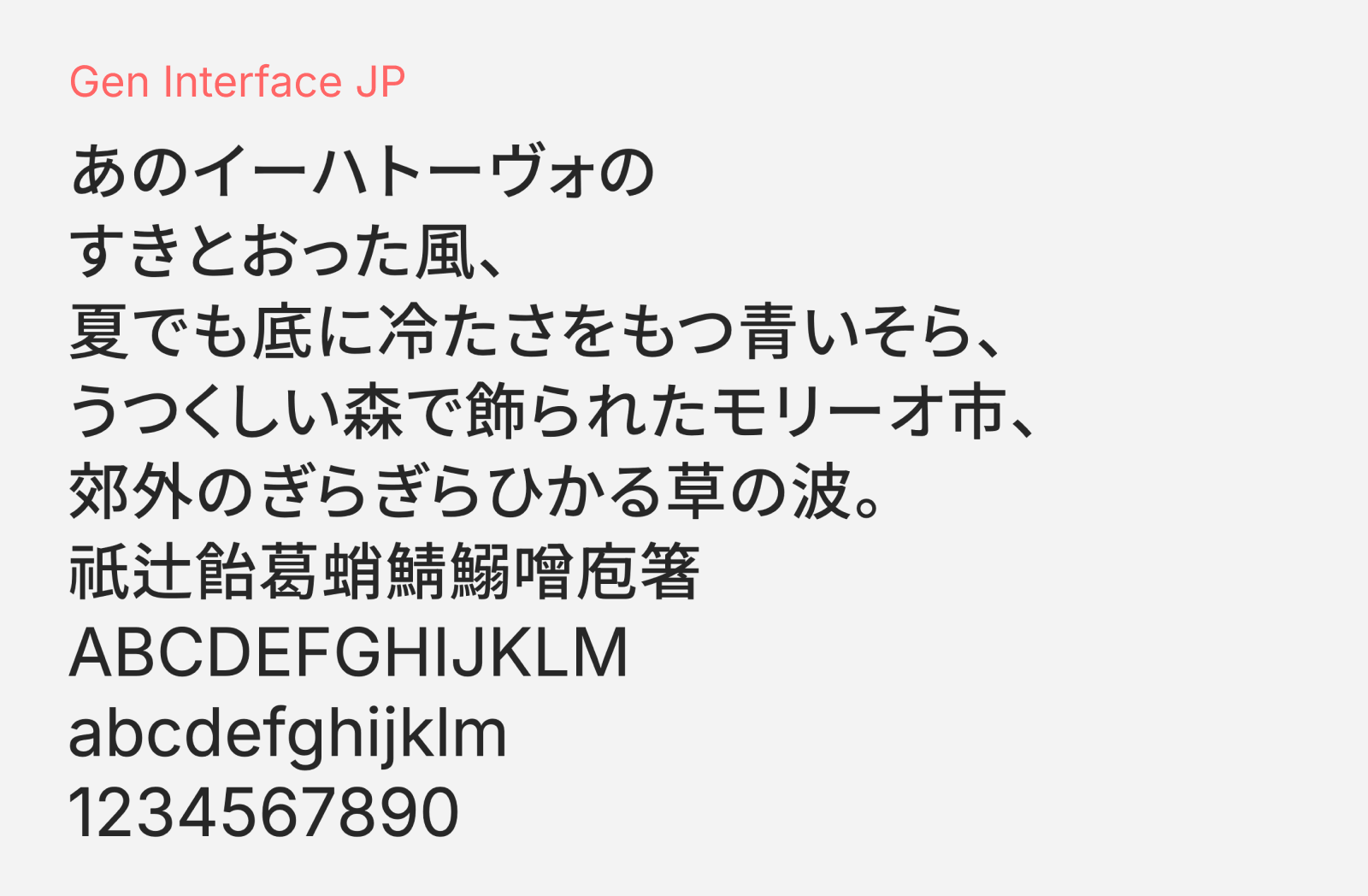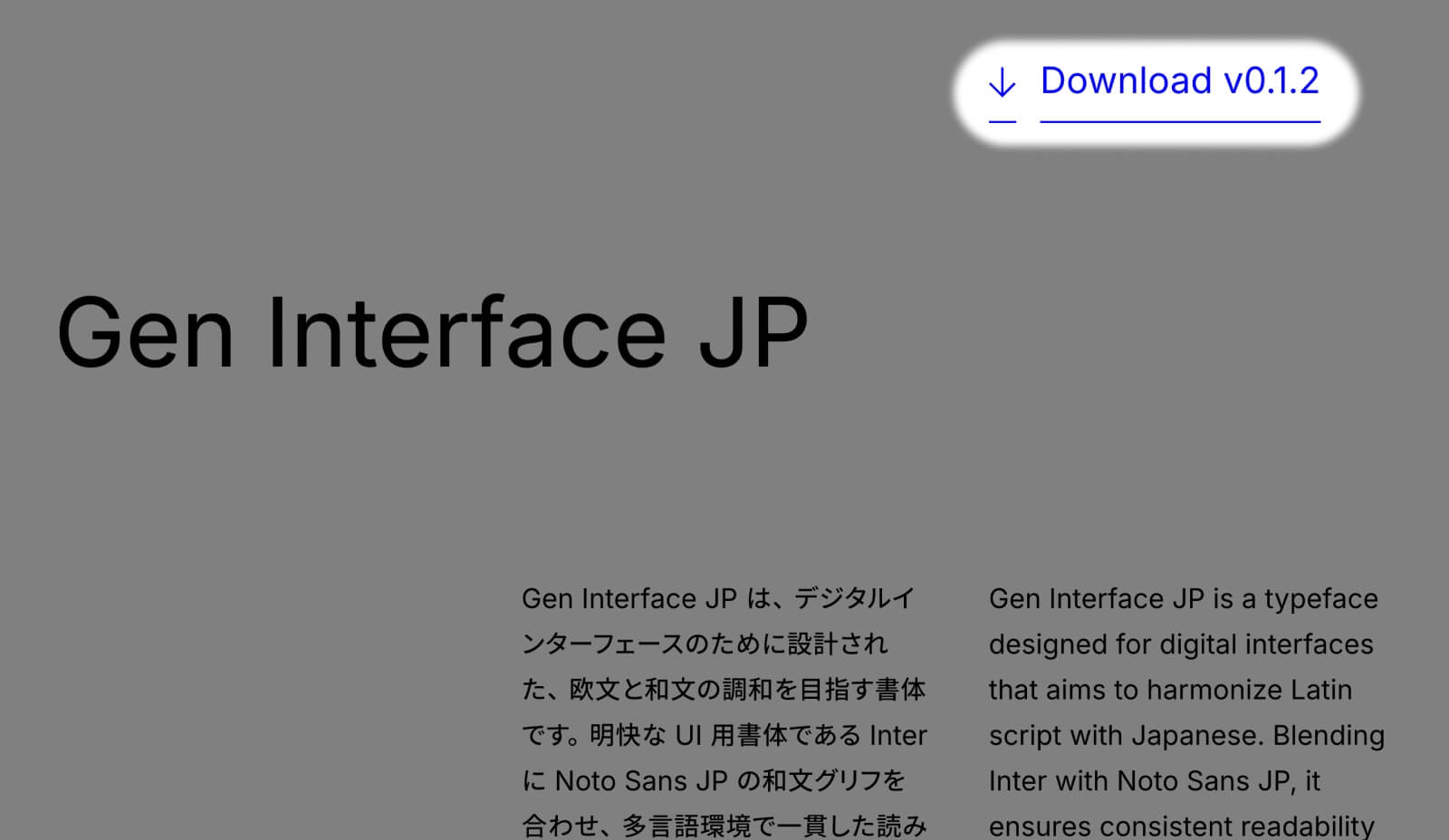
Gen Interface JP
Gen Interface JP is a typeface designed for digital interfaces, built around the idea of harmonizing Latin script with Japanese. It was created by blending two of the world’s most widely used open-source fonts: Inter for Latin characters and Noto Sans JP for Japanese. This wasn’t simply a matter of merging two fonts together. The Japanese characters were carefully adjusted in size, position, and letter spacing to achieve a seamless blend between the two typefaces, resulting in Latin and Japanese characters that sit side by side as though they belong to the same family.
While Gen Interface JP was primarily designed as a digital typeface for web and app user interfaces, it is equally suited for print, banners, and documents. The family includes eight weights ranging from Thin to ExtraBold, and comes in two versions: the standard version for body text and UI use, and a Display version with tighter letter spacing optimized for large headings and prominent displays. Gen Interface JP is free to download and available for commercial use, released under the SIL Open Font License 1.1.
- Hiragana and Katakana
- Kanji (JIS Level 1 + 2)
- Alphanumerics
- Latin, Cyrillic, Greek scripts
- Symbols and Punctuations